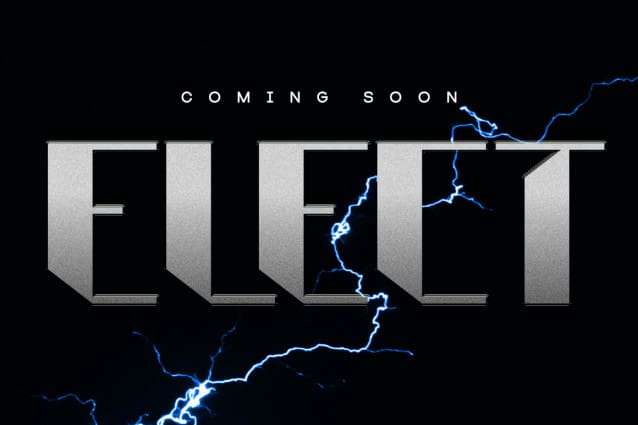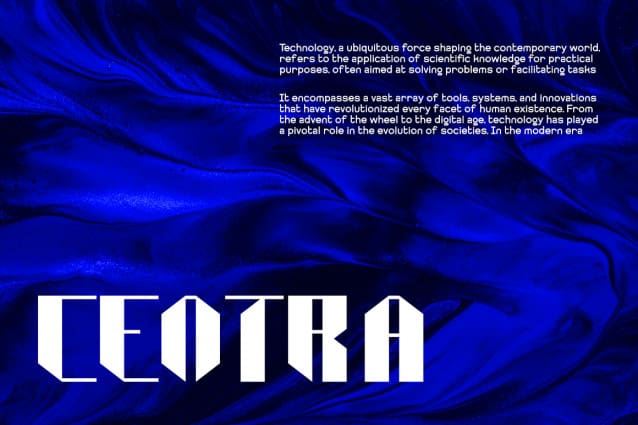
FF Robot Font
FF Robot Font, this bundle features strong, confident and powerful typefaces designed to work great with sports logos, club branding, apparel applications, labels and more.